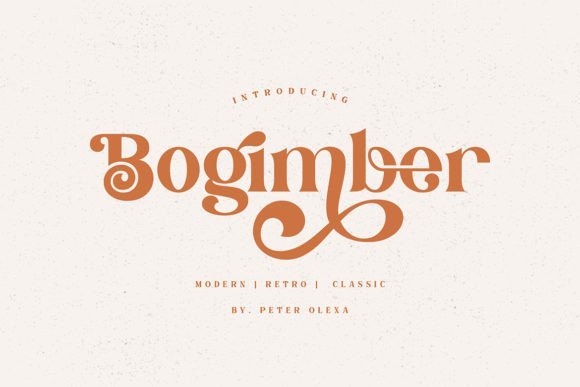
Introduction to Bogimber Font
Bogimber is a modern and stylish serif font that is perfect for creating a modern and trendy design.
It’s bold, yet elegant, and will make your projects stand out This font is PUA encoded which means you can access all glyphs and swashes effortlessly.
Key Features of Bogimber Font